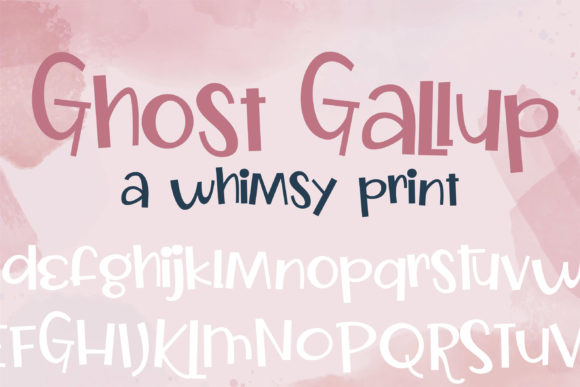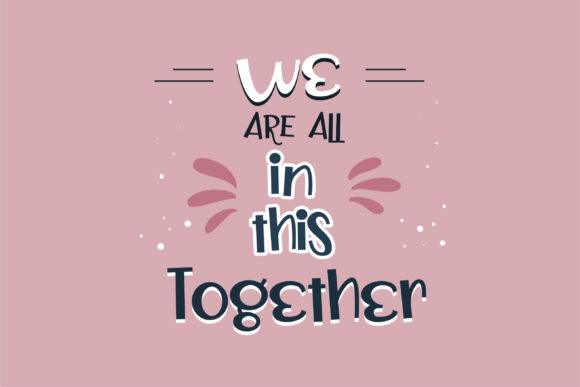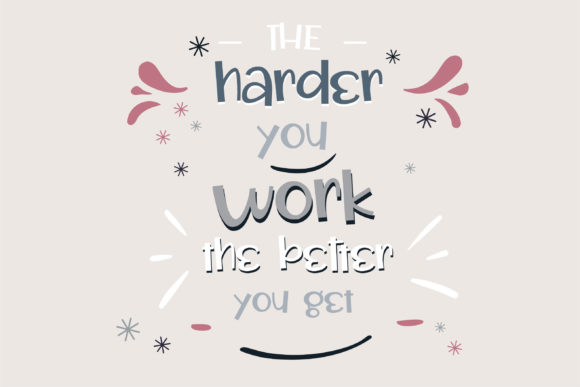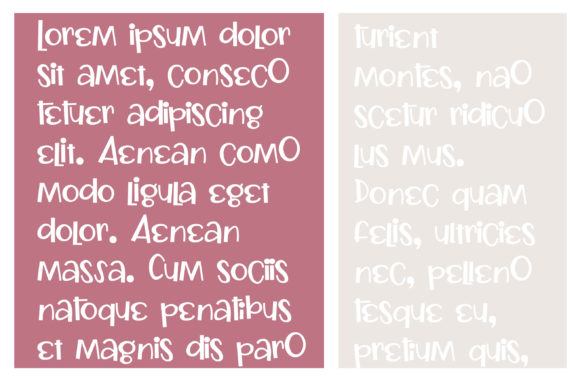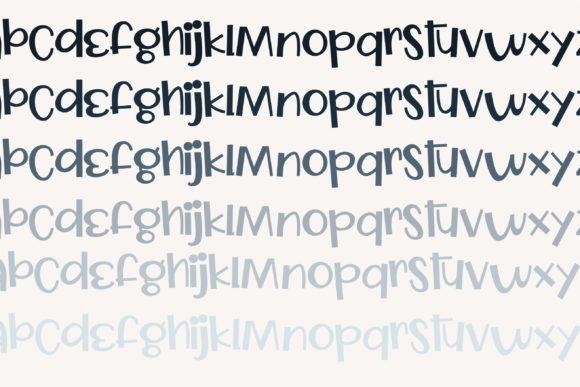
About Ghost Gallup Font
“Ghost Gallup” emerges as a whimsical script font with a playful bounce in its baseline. The beauty of its well-balanced characters makes it a versatile choice that matches a diverse range of designs. When incorporated into your creative projects, you’ll witness how this font brings them to life with its unique charm.
The allure of “Ghost Gallup” lies in its ability to add a touch of whimsy to your designs. Its delightful characters and playful baseline contribute to an aesthetic that resonates with creativity and visual appeal. This font’s adaptability ensures that it can seamlessly integrate into various design contexts.
From enhancing the appeal of logos to adding a whimsical touch to invitations, “Ghost Gallup” becomes an indispensable tool. Its distinct design can elevate the visual impact of your projects, making them stand out with a touch of artistic flair.
Incorporating “Ghost Gallup” into your design projects means embracing its whimsical and playful attributes. By utilizing its unique charm, you’re enhancing the visual allure of your work and ensuring that your designs resonate effectively with your intended audience. This font becomes a versatile resource for infusing your creations with a touch of creativity and liveliness. The PUA encoding feature further empowers your creativity by granting easy access to its diverse collection of glyphs and ligatures.